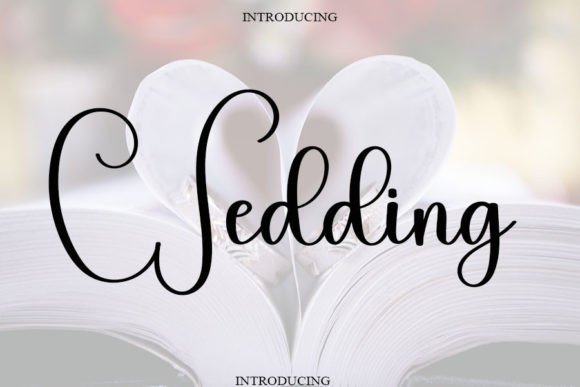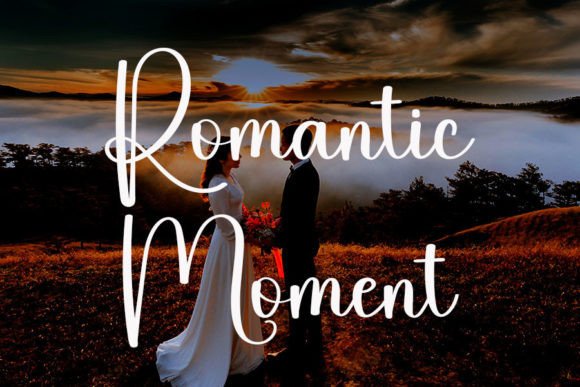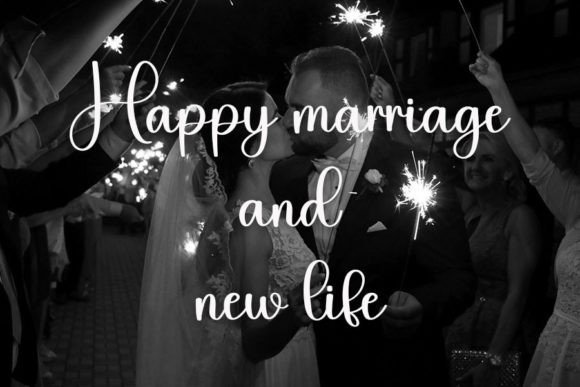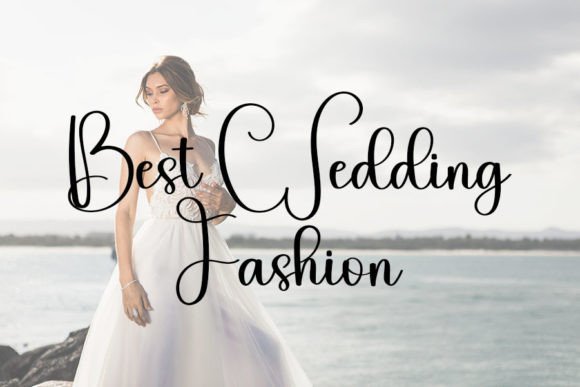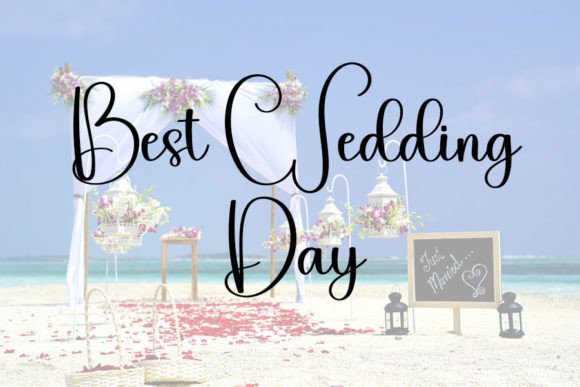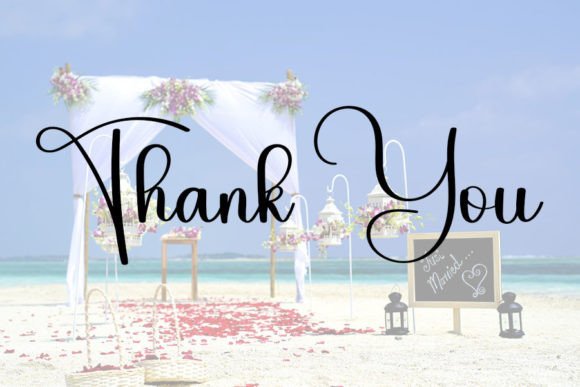
Wedding Font
About Wedding Font
“Wedding” is a delightful and charming handwritten font that exudes sweetness and beauty. With characters that gracefully dance along the baseline, this font possesses a unique charm that will infuse a touch of luxury into any design project you choose to undertake.
The handwritten quality of “Wedding” adds a personal and human touch to your creations, making it perfect for a variety of design applications. Whether you’re working on wedding invitations, cards, or any other project that requires a warm and personalized aesthetic, “Wedding” brings a distinct flair that captures attention.
The dancing characters along the baseline give “Wedding” a lively and dynamic feel, creating a sense of movement and playfulness. This unique feature sets the font apart, making it suitable for projects where you want to convey a sense of joy and whimsy, particularly fitting for celebratory occasions like weddings.
Picture “Wedding” gracing wedding invitations, where its sweet and beautiful script adds a touch of romance and elegance. Visualize it on greeting cards, bringing a sense of warmth and charm to your heartfelt messages for the special day. Whether used in digital designs or printed materials, “Wedding” adds a luxurious spark that elevates the overall visual appeal.
In the realm of branding and marketing for wedding-related businesses, “Wedding” becomes a distinctive choice to evoke the sentiment of love and celebration. Its handwritten charm adds authenticity, and the playful dance of characters brings a sense of energy and sophistication to your brand identity.
This font is not just a tool for creating text; it’s a design element that enhances the emotional resonance of your wedding-related projects. As you embrace “Wedding” in your creative endeavors, you’ll find that it has the power to transform ordinary designs into extraordinary ones, leaving a lasting impression on couples and audiences celebrating love.